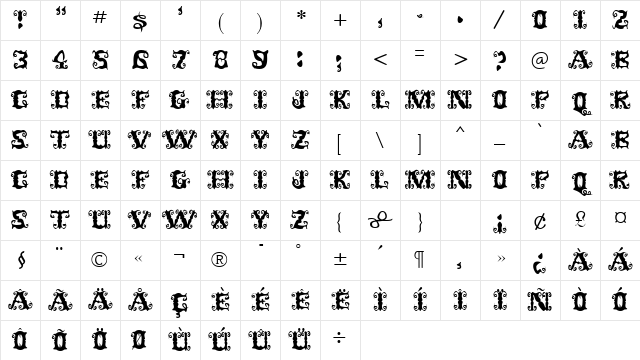
ShirlyUJest Regular Free Font
ShirlyUJest Regular
Design Context for ShirlyUJest
ShirlyUJest is a composed and adaptable typeface that performs quietly and consistently across a wide range of design contexts.